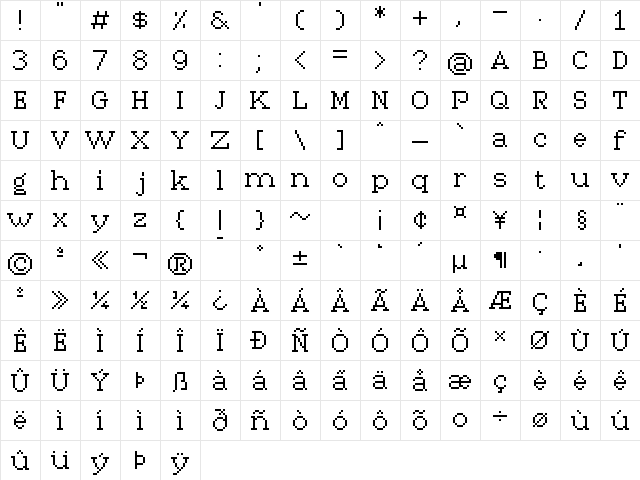
Talk-to-three-headed-monkey Regular
| Designer | Marco Milone |
Design Context for Talk-to-three-headed-monkey Typeface
Talk-to-three-headed-monkey offers clean, dependable letterforms without strong stylistic allegiance, making it a practical choice for designers who need flexibility.